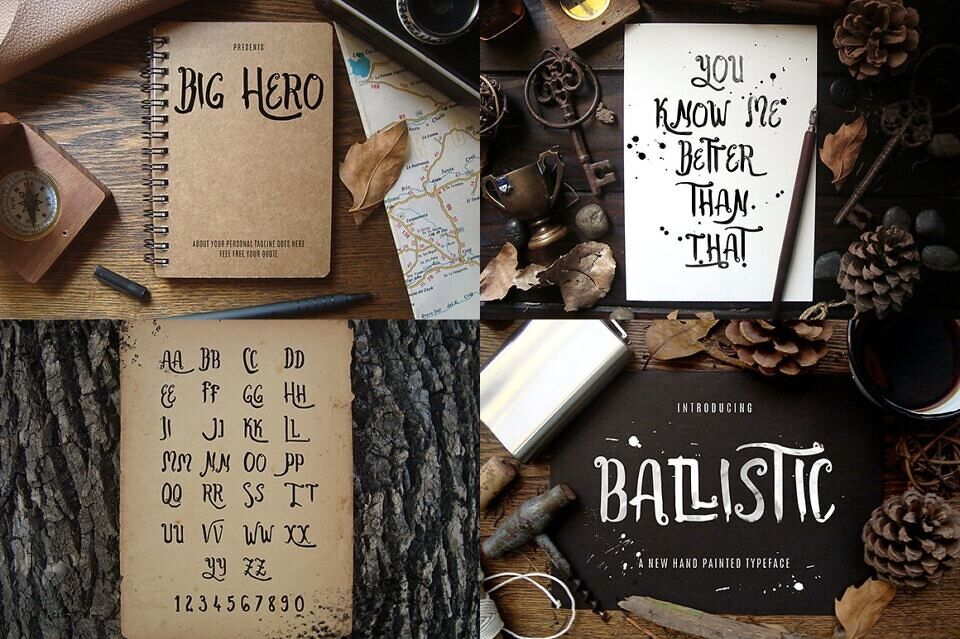
Ballistic Font
Ballistic Font is a dynamic, paint-brushed handwritten typeface with a bold personality, perfect for striking designs. It’s ideal for enhancing titles, logos, and visuals across various projects. Ballistic adds a rugged, energetic flair to any creation, inspiring designers to craft impactful, eye-catching work.